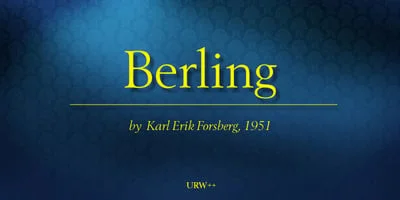
Berling Font
Berling Font is perfect for book publishing, literary magazines, academic journals, newspaper typography, editorial design, scholarly publications, and extended reading materials. This refined typeface brings Scandinavian elegance and superior readability to text-intensive design projects.
Berling Font is exciting because it represents the pinnacle of Scandinavian typography design with its carefully balanced letterforms that provide exceptional reading comfort while maintaining the distinctive character essential for high-quality editorial and publishing applications.
The Berling Font family includes Roman and Italic styles in multiple weights, each optimized for different text sizes and reading conditions. This comprehensive collection provides publishers and designers with complete solutions for professional text typography requirements.
Berling Font offers designers access to an expertly crafted serif typeface that exemplifies the highest standards of Scandinavian typography and editorial design excellence. This distinguished font features meticulously designed letterforms with optimal proportions and spacing that ensure exceptional readability in extended text applications. The typeface showcases refined character details and balanced stroke relationships that create superior reading rhythm while maintaining professional publishing presence. Its scholarly character makes it particularly suitable for academic institutions and literary publishers that require typography capable of conveying intellectual authority, Nordic design sophistication, and reading excellence. Berling Font delivers consistent performance across various publishing applications, from intimate literary works to comprehensive academic publications. The font's Scandinavian heritage and typographic precision ensure superior results that enhance reading comprehension and scholarly communication while providing readers with a comfortable and engaging reading experience that reflects the highest standards of Nordic design excellence.